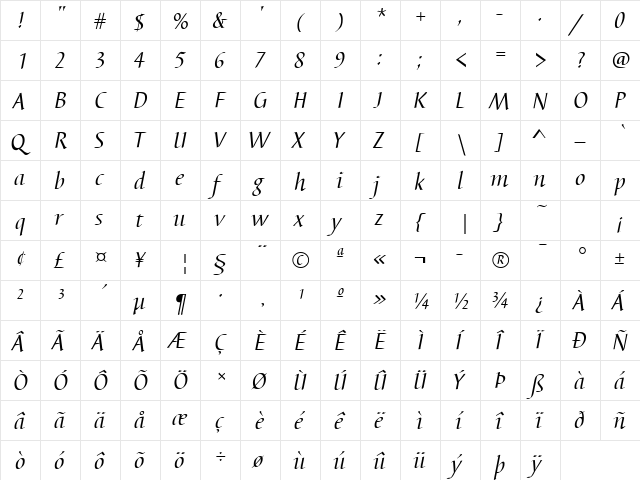
Barbedor Italic
Design Context for Barbedor Typeface
Barbedor offers clean, dependable letterforms without strong stylistic allegiance, making it a practical choice for designers who need flexibility. The slanted form adds forward momentum and visual energy.
Pro Tip: Use Barbedor for emphasis, pull quotes, and subheadings where its slanted energy can add rhythm to the layout.